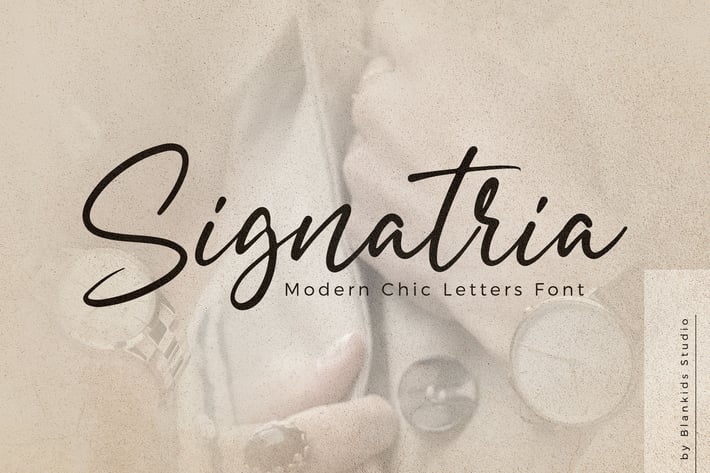
Signatria a Chic Letter Font
Introducing of our new product the name is Signatria a Chic Letter Font. Signatria inspired by signature style this font is a fun theme very good for display, tshirt design, craft, quote sign, logotype and etc
MULTILINGUAL ACCENT :
ØÆøæ¢ÐŒœÁĂÂÀÄĄÅÃǼĆČÇĈĊĎÉĔĚÊËĖÈĘĞĜĢĠĤÍĬÎÏİÌĮĨĴĶĹĽĻĿŃŇŅÑÓŎÔÖÒŐǾÕŔŘŖŚŠŞŜȘŤŢÚŬÛÜÙŰŲŮŨẂŴẄẀÝŶŸỲŹŽŻáăâäàąåãǽćčçĉċďéĕěêëėèęğĝģġĥíîïìįĩĵķĺľļŀńʼnňņñóŏôöòőǿõŕřŗśšşŝșťţŭûüűùųůũẃŵẅẁýŷÿỳźžż